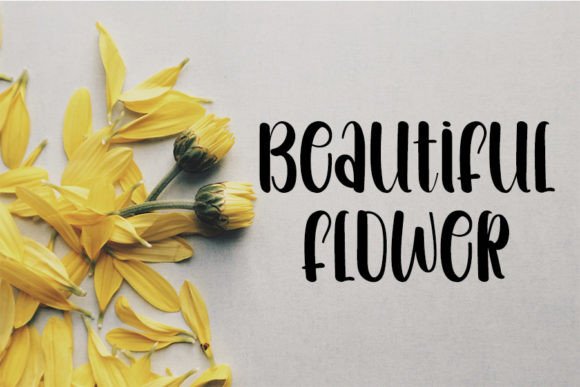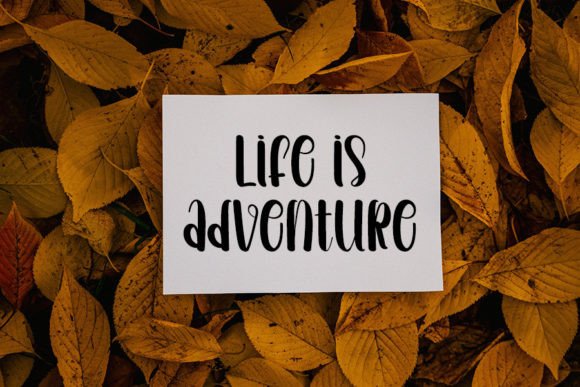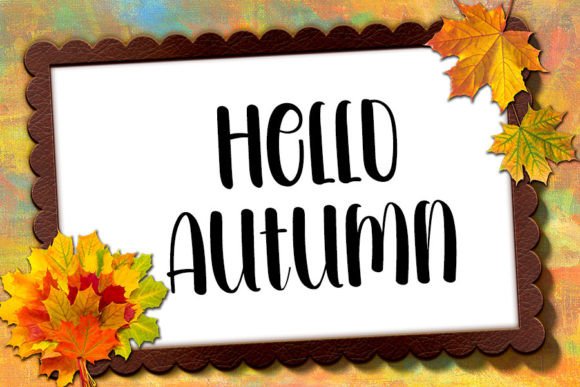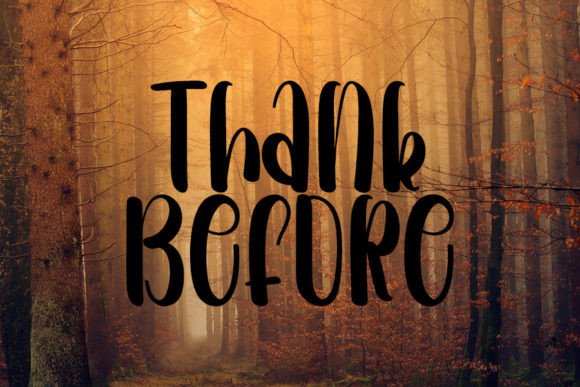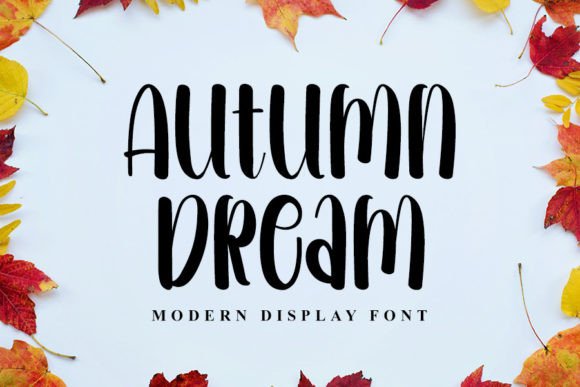
Introducing Autumn Dreams Font: Elevate Your Designs with Elegance and Class
Are you a designer or crafter looking for a font that exudes sophistication and style? Look no further than Autumn Dreams Font, a trendy handwritten font that brings a contemporary atmosphere and impeccable form to your design projects. Inspired by timeless classic calligraphy, Autumn Dreams Font is the perfect addition to any designer’s toolkit.
The Inspiration Behind Autumn Dreams Font
Autumn Dreams Font draws inspiration from the classic calligraphy of yesteryear, with a modern twist. The font’s creator aimed to capture the essence of traditional calligraphy while infusing it with a fresh, contemporary vibe. The result is a font that is both elegant and modern, perfect for designers who want to add a touch of sophistication to their work.
Key Features of Autumn Dreams Font
• Trendy Handwritten Style: Autumn Dreams Font boasts a stylish handwritten look that is perfect for a variety of design projects, from branding and advertising to packaging and stationery.
• Contemporary Atmosphere: The font’s modern take on classic calligraphy ensures that your designs will feel fresh and up-to-date.
• Impeccable Form: Each letterform has been carefully crafted to ensure that the font is both beautiful and legible.
• Elegance and Class: Autumn Dreams Font adds a touch of sophistication to any design project, making it perfect for high-end branding, luxury packaging, and more.
Uses for Autumn Dreams Font
Autumn Dreams Font is versatile and can be used in a variety of design projects, including:
• Branding and Logo Design: Create a lasting impression with a custom logo that showcases your brand’s personality and style.
• Advertising and Marketing Materials: Use Autumn Dreams Font to add a touch of elegance to your ads, brochures, and other marketing materials.
• Packaging Design: Elevate your product packaging with a font that exudes luxury and sophistication.
• Stationery and Invitations: Create beautiful stationery, invitations, and greeting cards that showcase your personal style.
Why Choose Autumn Dreams Font?
With so many fonts available, why choose Autumn Dreams Font? Here are just a few reasons:
• Unique and Versatile: Autumn Dreams Font is a one-of-a-kind font that can be used in a variety of design projects.
• High-Quality Design: Each letterform has been carefully crafted to ensure that the font is both beautiful and legible.
Autumn Dreams Font is a trendy handwritten font that brings a contemporary atmosphere and impeccable form to your design projects. Inspired by timeless classic calligraphy, this font is perfect for designers and crafters who want to add elegance and class to their work. With its versatility, high-quality design, and ease of use, Autumn Dreams Font is a must-have for any designer’s toolkit.